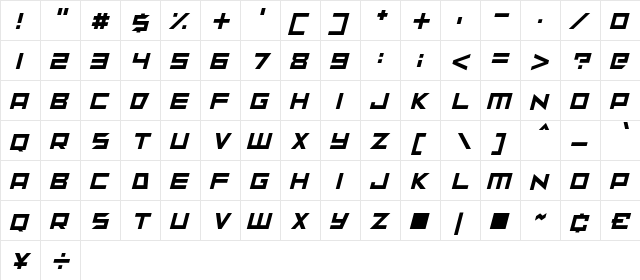
sunspire Italic
Design Context for sunspire Typeface
sunspire takes a measured approach to typography — its balanced proportions and neutral character make it a reliable workhorse for both digital and print work. Its italic angle brings a sense of urgency and motion to the letterforms.
Pro Tip: Use sunspire for emphasis, pull quotes, and subheadings where its slanted energy can add rhythm to the layout.